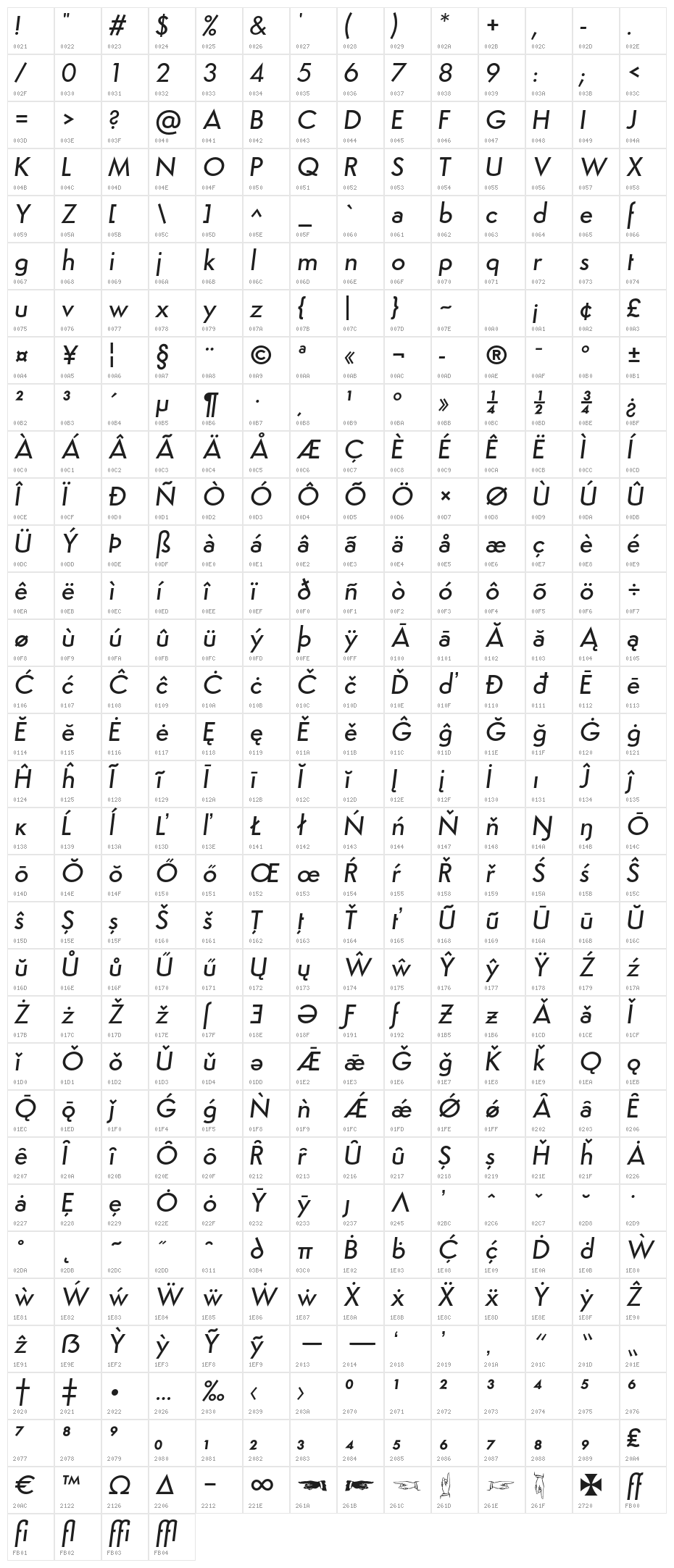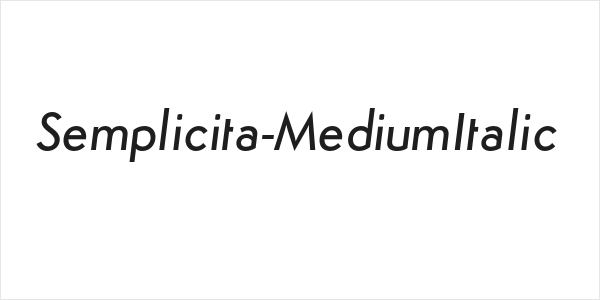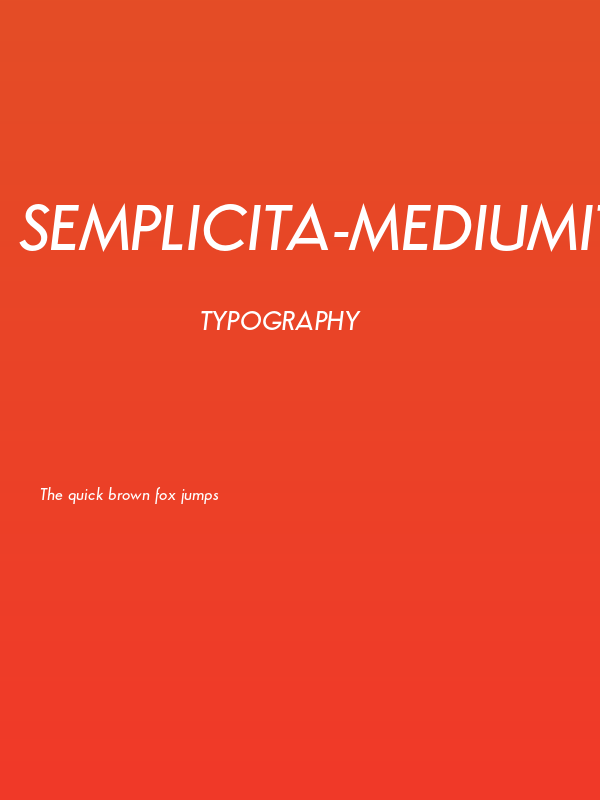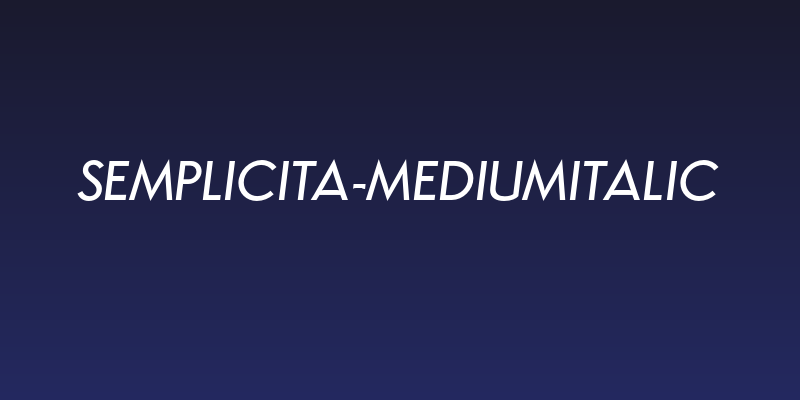
Semplicita-MediumItalic Font
Semplicita-MediumItalic Description
This typeface exhibits a clean, geometric design with a modern aesthetic. The characters are slightly condensed, giving it a sleek and streamlined appearance. The italic style adds a dynamic and forward-leaning quality, enhancing its contemporary feel. The strokes are consistent, with medium contrast, providing a balanced and harmonious look. The uppercase letters are bold and assertive, while the lowercase letters maintain a smooth and flowing form. Numerals are clear and legible, and the special characters are well-integrated, maintaining the overall style. This font is versatile, suitable for various design applications.
| Use Case | Headlines, Logos, Editorial design |
| Proposed Projects | Ideal for branding, editorial design, advertising, and digital interfaces where a modern and dynamic look is desired. |